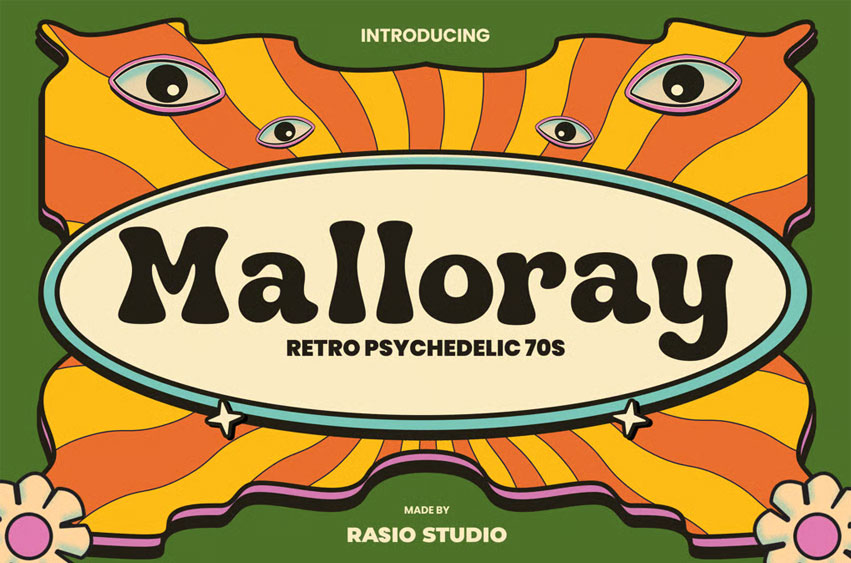
Malloray Font
Malloray Font Retro Psychedelic Font captures the bold and groovy spirit of the 1970s with its wavy letterforms and playful rhythm. Inspired by the vibrant aesthetics of vintage posters, disco culture, and psychedelic art, this display typeface delivers nostalgic charm with a modern twist.
Each character is handcrafted with smooth organic curves, creating a fun, bold, and free-flowing vibe that’s perfect for retro-inspired designs. Whether for music festival posters, vintage branding, or bold editorial titles, Malloray brings a unique and expressive personality to every project.
Malloray is ideal for retro-inspired design projects such as vintage posters, 70s music covers, event flyers, and creative branding. Its funky curves and psychedelic flair make it perfect for designs seeking fun, nostalgia, and standout character.